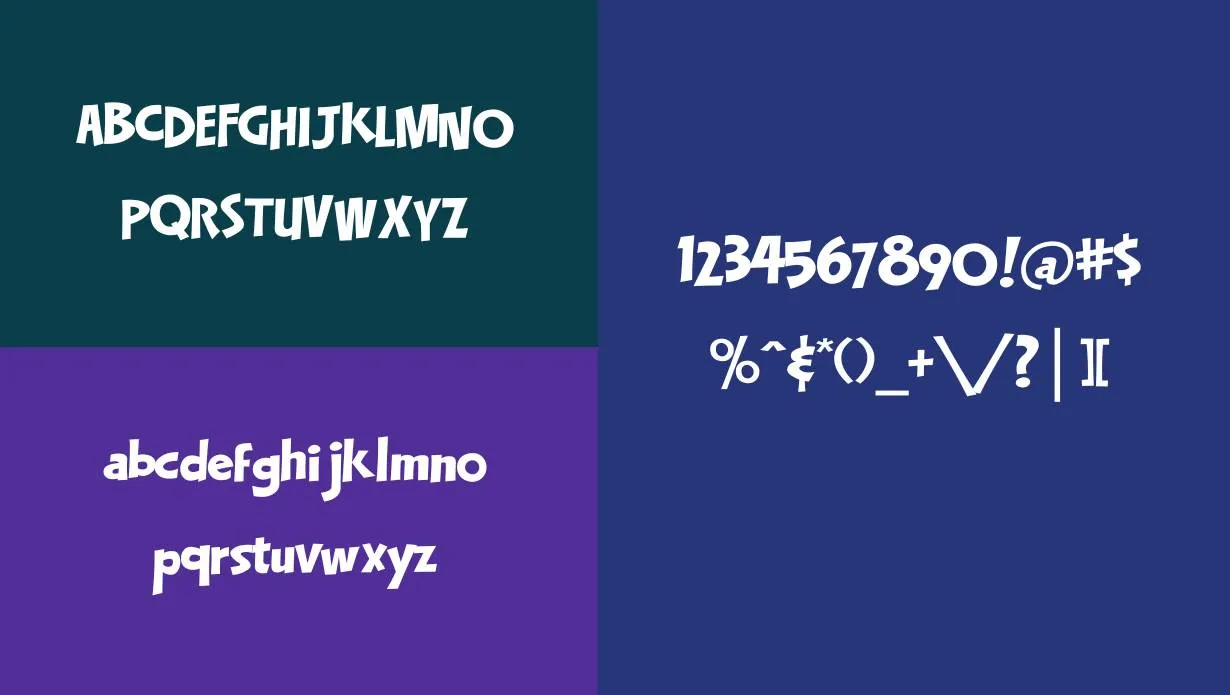
The Happy Fun Ball Font brings a playful and cheerful vibe to your designs. Ideal for creative projects or anything that seeks a lighthearted tone, its lively characters are perfect for posters or artistic endeavors.
| Name | Happy Fun Ball Font |
| Designer | Chuck Davis |